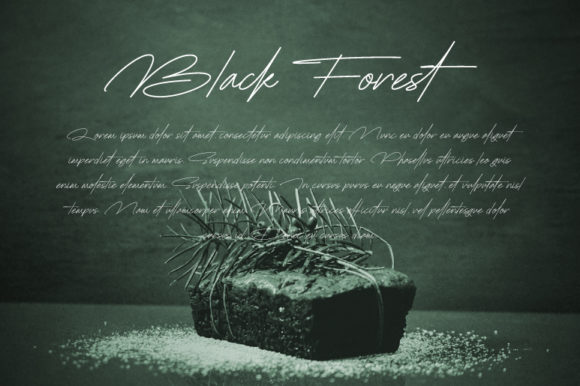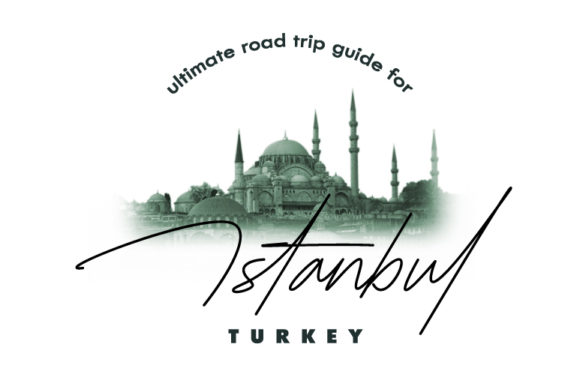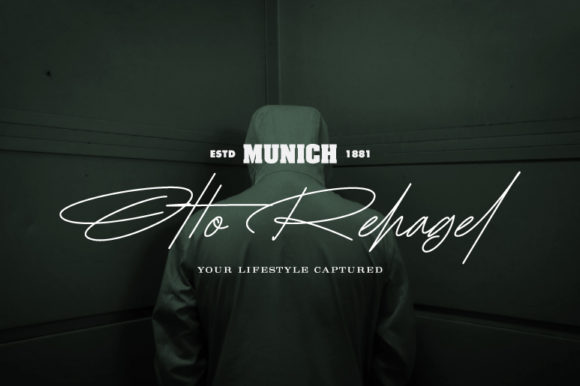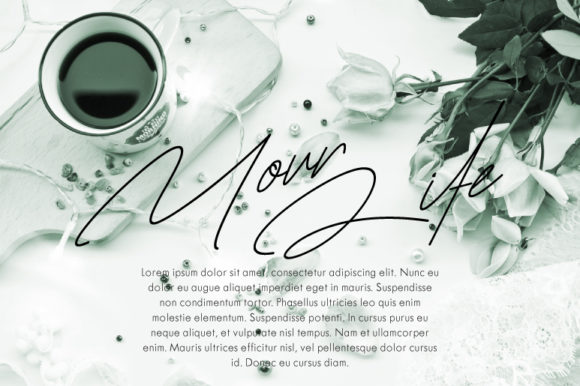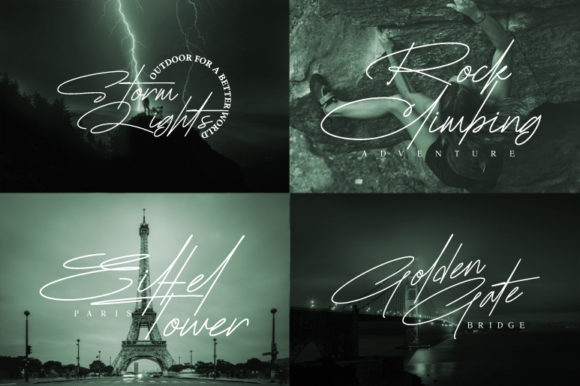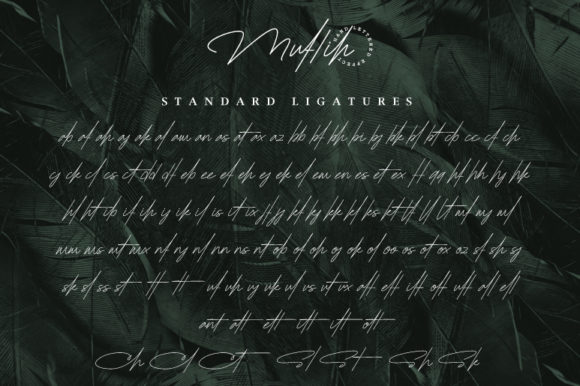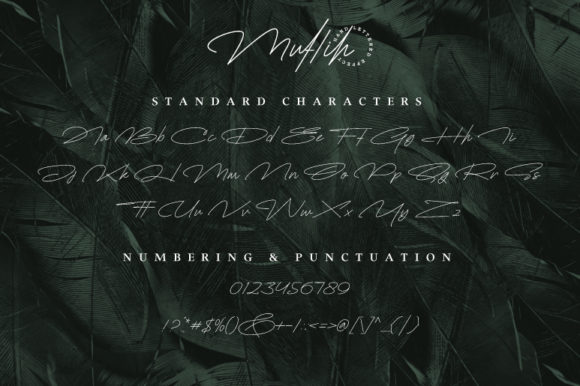
About Muflih Font
Muflih is a stylish and refined script font. It has a clean, thin and smooth vibe and it will be a hit for any design that you want to add it to. This font is PUA encoded which means you can access all of the glyphs and swashes with ease!